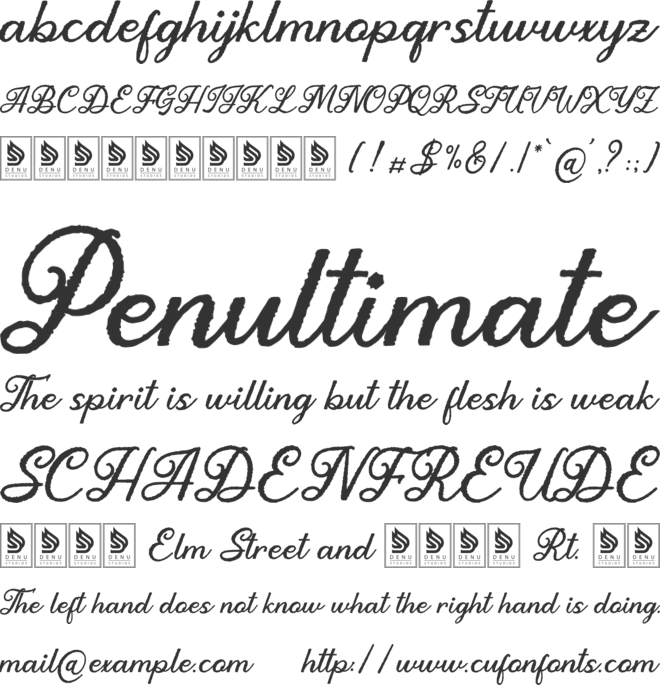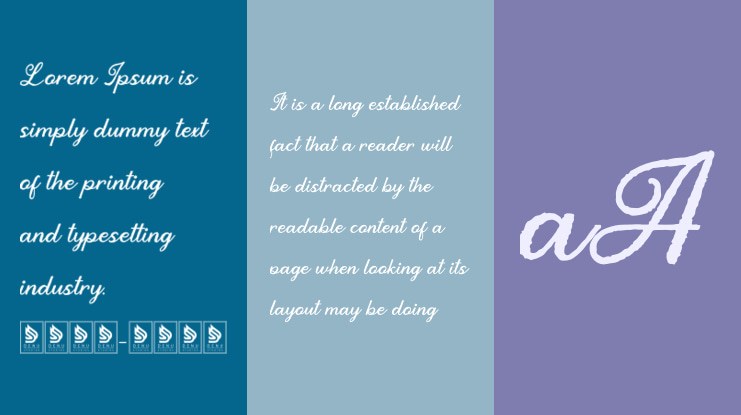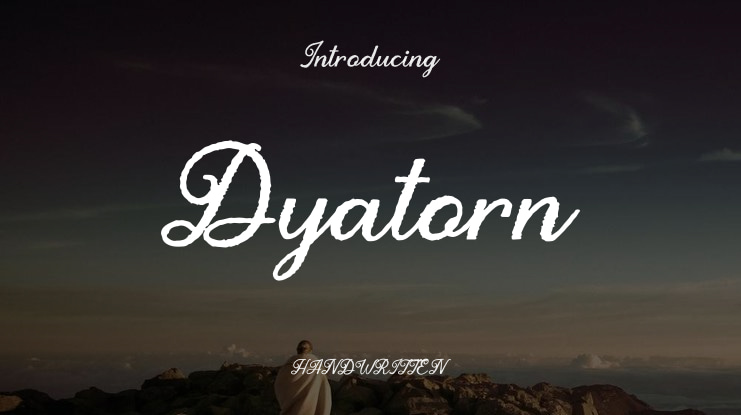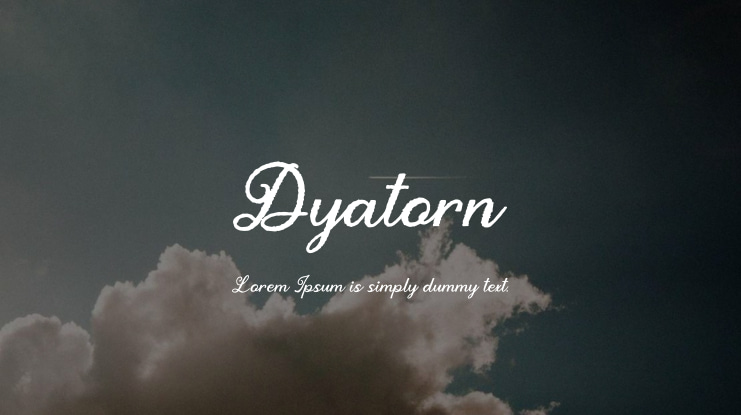
Dyatorn Brush Handwritten Font is perfect for a variety of projects, including: - Logos - Branding projects - Homeware designs - Product packaging - Mugs - Quotes - Posters - Shopping bags - T-shirts - Book covers - Name cards - Invitation cards - Greeting cards - Labels - Photography - Watermarks - Special events - Any other lovely projects that need a Brush Handwritten Font touch.